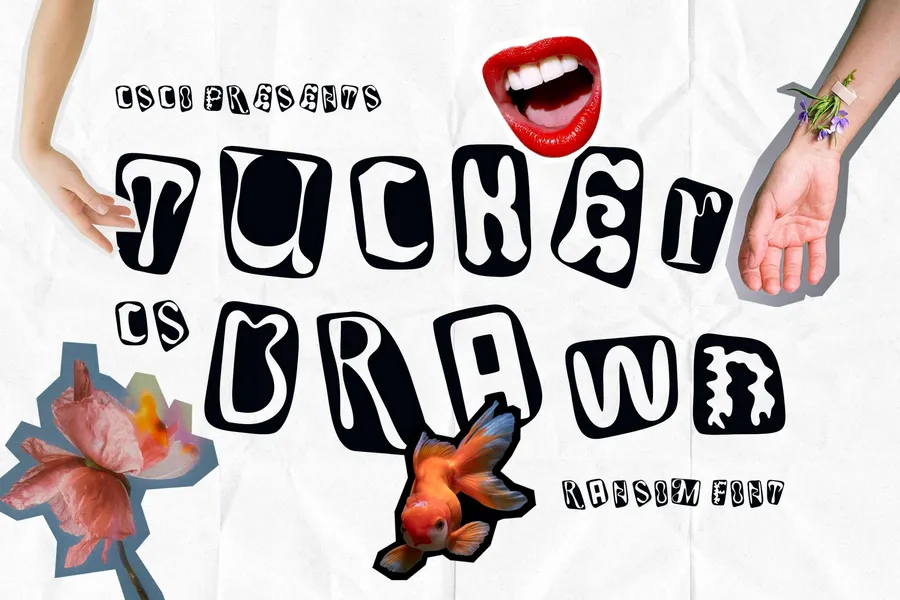
Tucker Drawn
CS Tucker Drawn – Chaotic Creativity in Collage Form
Ransom Collage Aesthetic with Raw Appeal This is a display font built on the concept of ransom-style typography, where letters feel like they were cut and pasted from different sources—magazines, newspapers, posters. Each character is irregular and unpredictable, contributing to an aesthetic that’s funky, rebellious, and completely unique.
Drawn Effect for Handcrafted Edge The font is further enhanced with a drawn effect, adding a rough, sketch-like texture that amplifies its raw, handmade quality. The imperfect edges and visible strokes bring a personal, expressive character, as if each piece of the font was assembled with scissors and ink by hand.
Eccentric Letterforms for Expressive Visuals Tucker’s irregularity becomes its strength—every letter offers its own visual story. This font thrives on asymmetry, contrast, and collage chaos, making it visually engaging and creatively unpredictable. It’s perfect for compositions where energy and expression matter more than order and uniformity.
Perfect for Zines, Music, and Experimental Design Whether used in zine culture, album covers, music posters, or edgy branding, this creative font brings attitude and identity. It’s a go-to for creatives who want to reject the norm and craft visuals that are raw, disruptive, and brimming with rebellious charm.